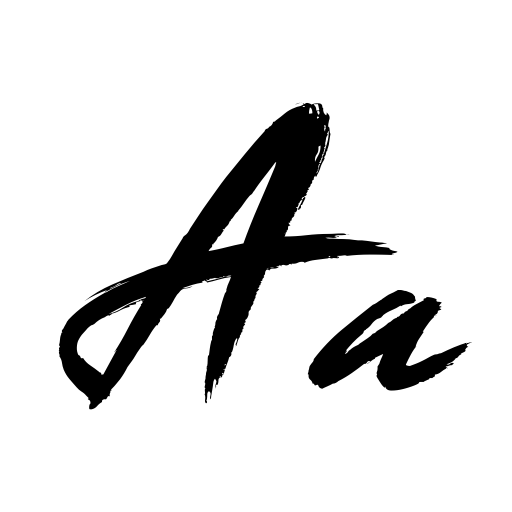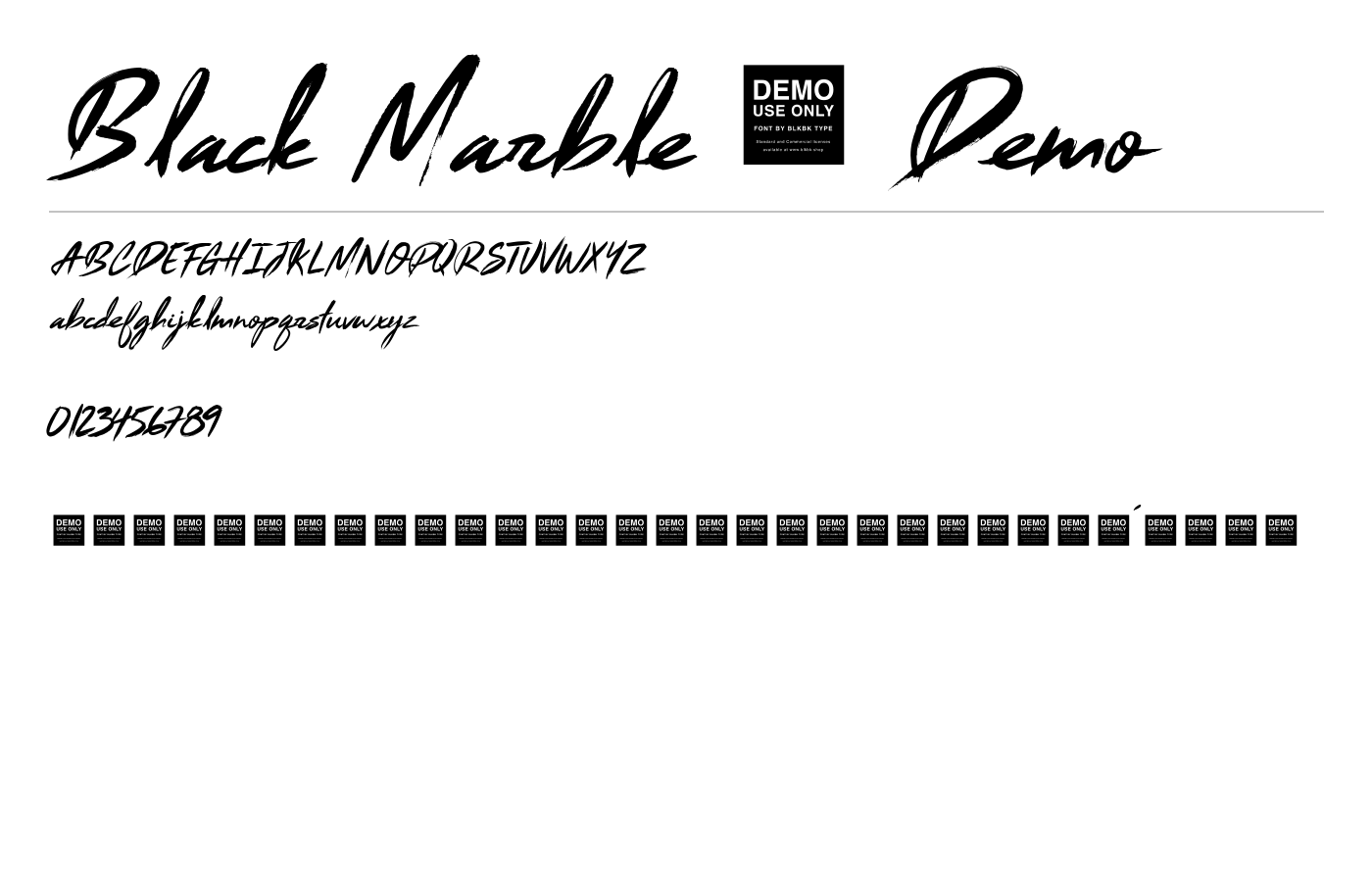
Black Marble is a dynamic and expressive script font that combines a bold, brush-stroke style with elegant, flowing letterforms. Its high contrast and textured strokes give it a hand-crafted, artistic feel, making it ideal for creative branding, headlines, and packaging that require a personal yet striking touch. This font works well in designs that aim to convey energy and sophistication with a modern, handcrafted vibe.
Black Marble - Demo Font
About Black Marble - Demo Font